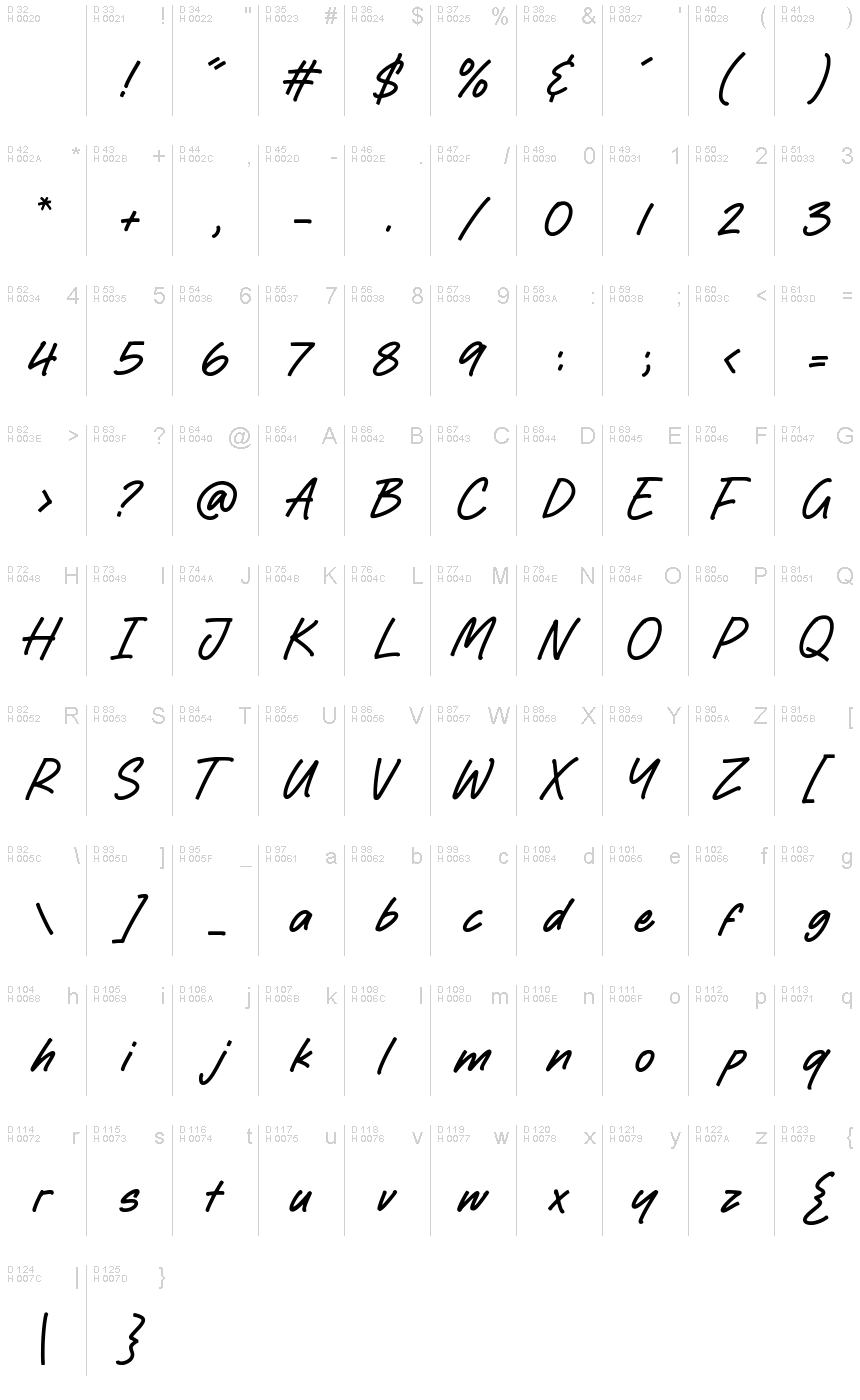
Harvest Cake
Harvest Cake font, crafted by Letterative Studio, radiates a playful and inviting charm typical of handwritten styles. Its smooth curves evoke warmth and approachability, making it ideal for capturing attention in any design. The font's generous letters flow gracefully, creating a sense of movement that enhances its organic appeal.
Visually distinctive, Harvest Cake features delightful variations in thickness that add character without sacrificing readability. This makes it particularly suitable for branding projects focused on artisanal or personal touches, like bakery logos or event invitations.
In various contexts—be it quirky packaging designs or heartfelt social media graphics—Harvest Cake excels in conveying authenticity and creativity. It brings an air of friendliness to any message, effortlessly creating a connection with the audience through its unique aesthetic.